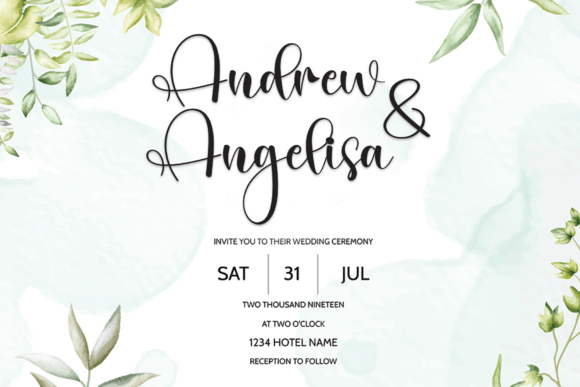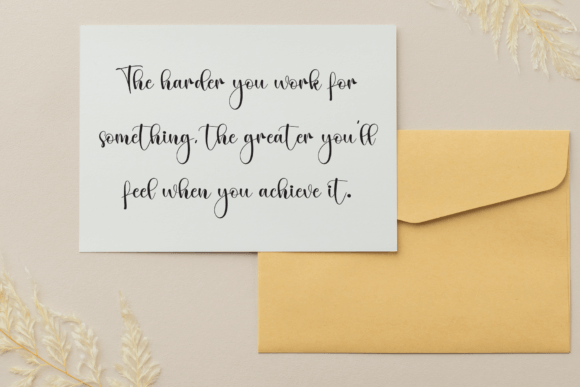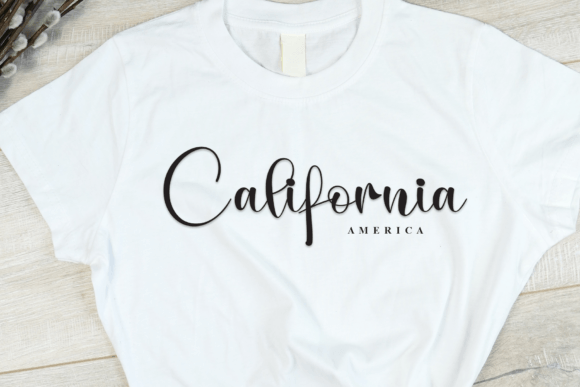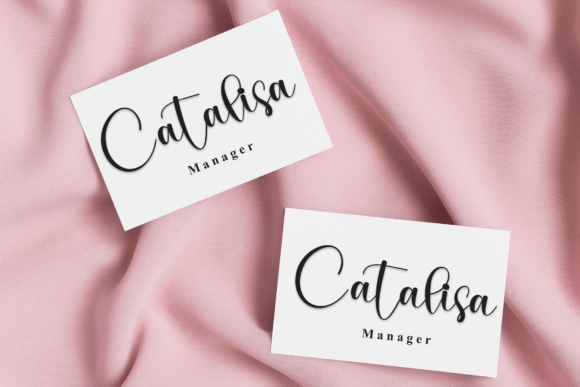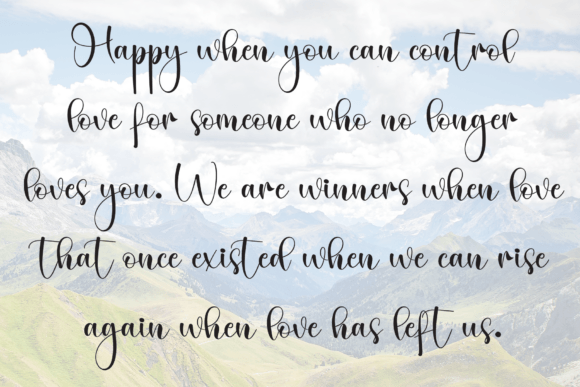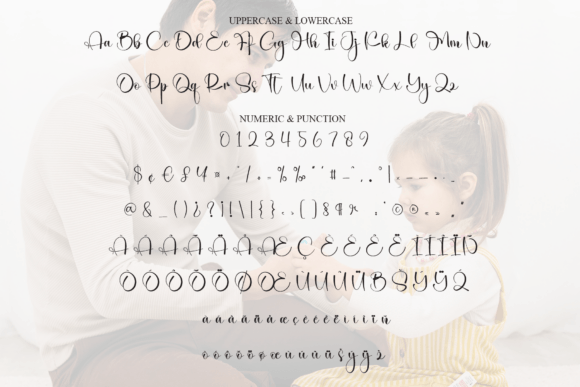
Meet the Perfect Pen Pal: Daddy Font
As designers, we’ve all had those moments when we’re stuck on a project and need a spark to get our creative juices flowing. Maybe it’s a last-minute invitation, a personal signature, or a logo that needs a touch of elegance. Whatever it is, you know that the right font can make all the difference.
Enter Daddy Font, a stylish and flowing script font that captures the essence of handwriting. With its smooth curves and elegant flair, Daddy Font is perfect for adding a touch of personality and charm to your designs. Whether you’re a seasoned pro or a budding designer, this versatile font is sure to become your go-to for creative projects.
Daddy Font Key Features
- Unique Characteristics: Daddy Font is known for its bold and playful design, making it perfect for use in headings, titles, and other display typography.
Daddy Font Review
I recently had the chance to work with Daddy Font, and I must say it’s an interesting choice. ✨ The font’s bold, playful vibe can definitely bring a lot of personality to a design. It’s perfect for projects that need a bit of whimsy and fun.
- Unique character set: Daddy Font has some truly one-of-a-kind glyphs that can add a lot of character to a design.
- High-quality rendering: The font renders beautifully at all sizes, making it a great choice for both digital and print projects.
- Good for headings and titles: The font’s bold, eye-catching nature makes it perfect for headings and titles.
- Limited legibility: In smaller sizes, the font can become difficult to read, especially for longer blocks of text.
- Not ideal for body text: While Daddy Font is great for headings and titles, it’s not the best choice for body text due to its limited legibility.
- May not be suitable for formal projects: The font’s playful nature may not be suitable for formal or professional projects.
Overall, I think Daddy Font is a great choice for the right project. It’s perfect for projects that need a bit of personality and fun, but it may not be the best choice for more formal or serious projects.
Getting the Most Out of Daddy Font
Tips for getting the most out of Daddy Font include:
Experimenting with different font combinations and styles.
Using Daddy Font for headings and titles to create visual hierarchy.
Customizing the font to match your brand identity.
Daddy Font is commonly used for:
Creating unique and eye-catching headlines.
Adding a touch of personality to your brand’s visual identity.
Designing creative and engaging marketing materials.